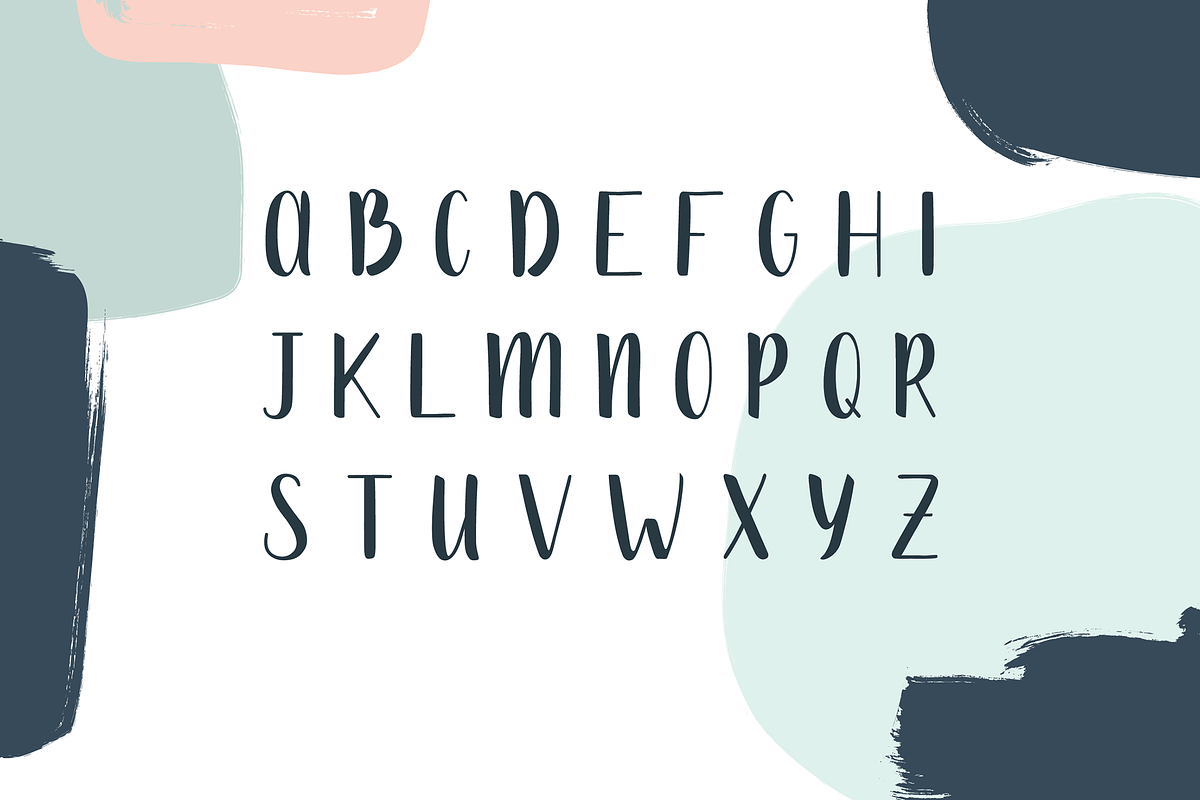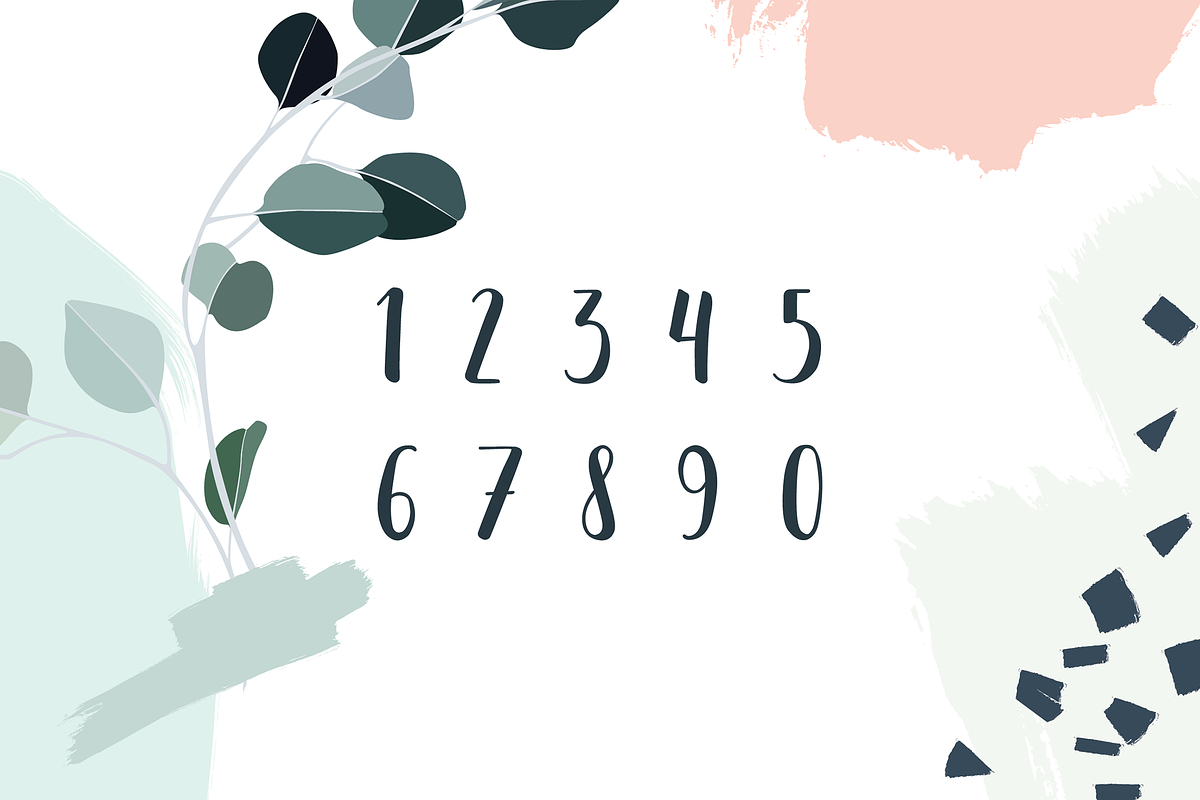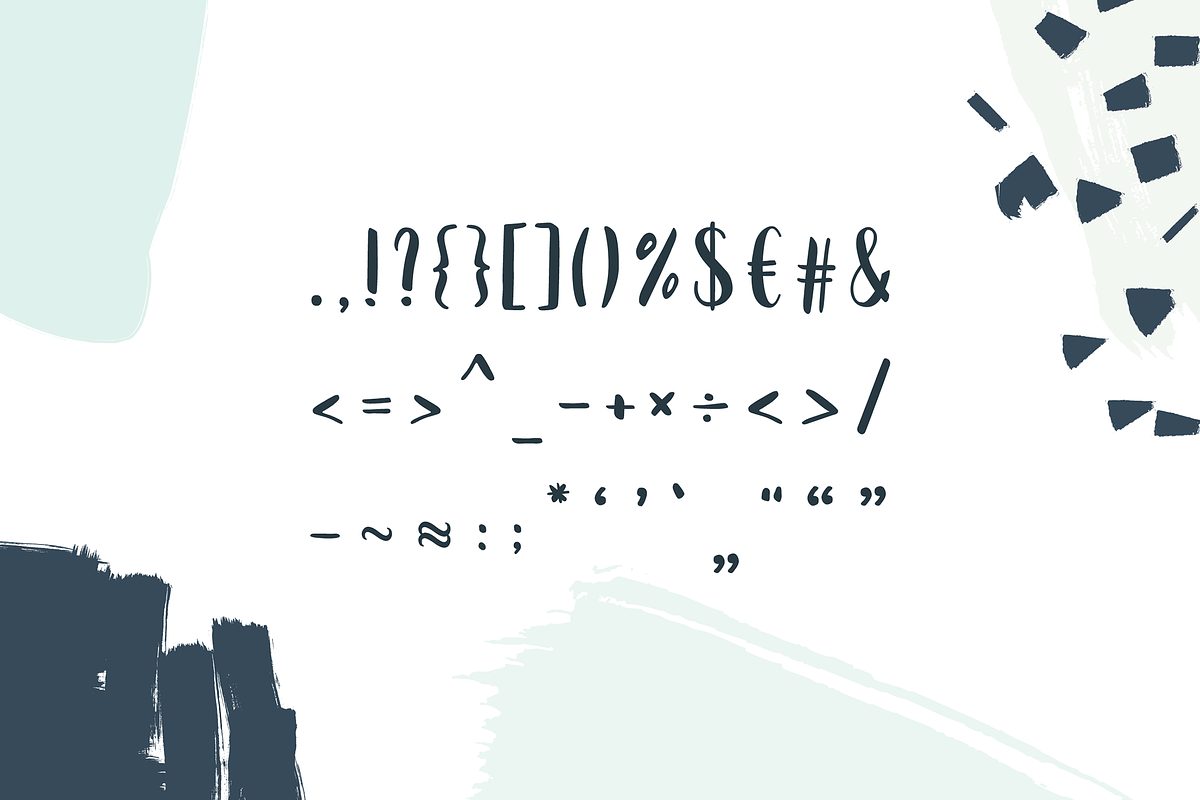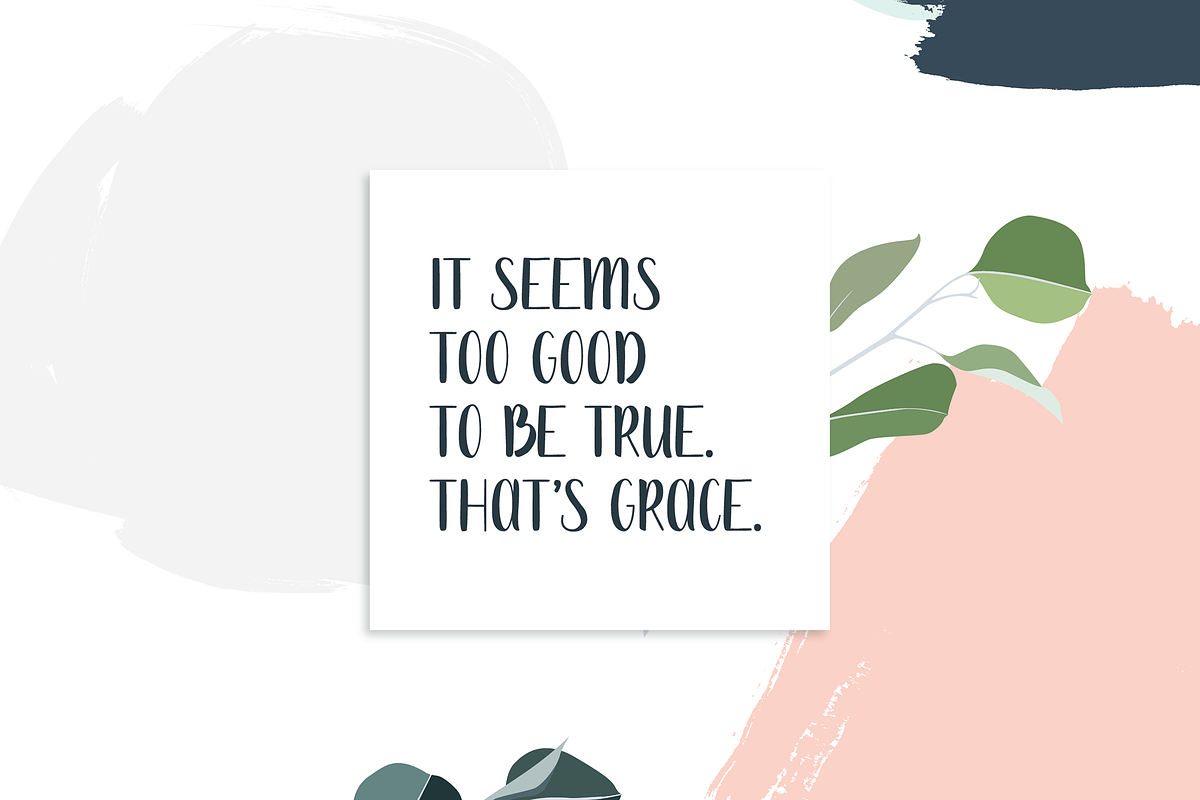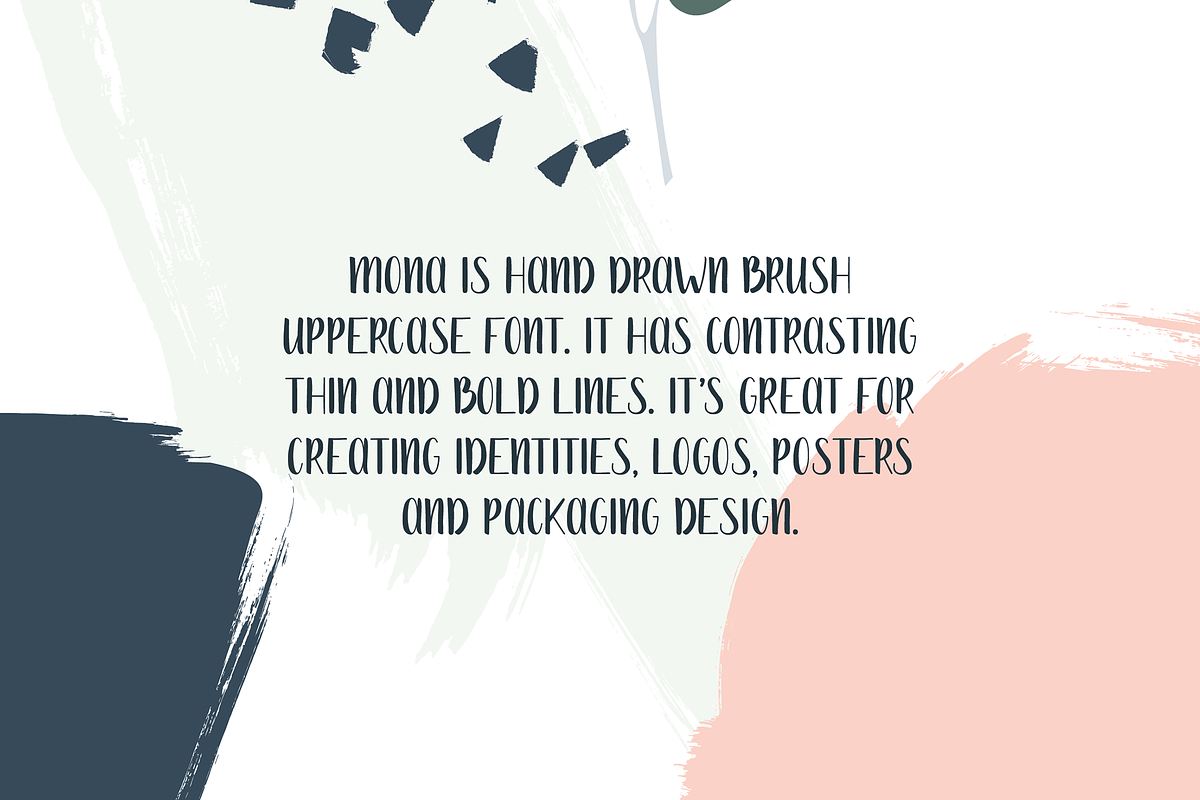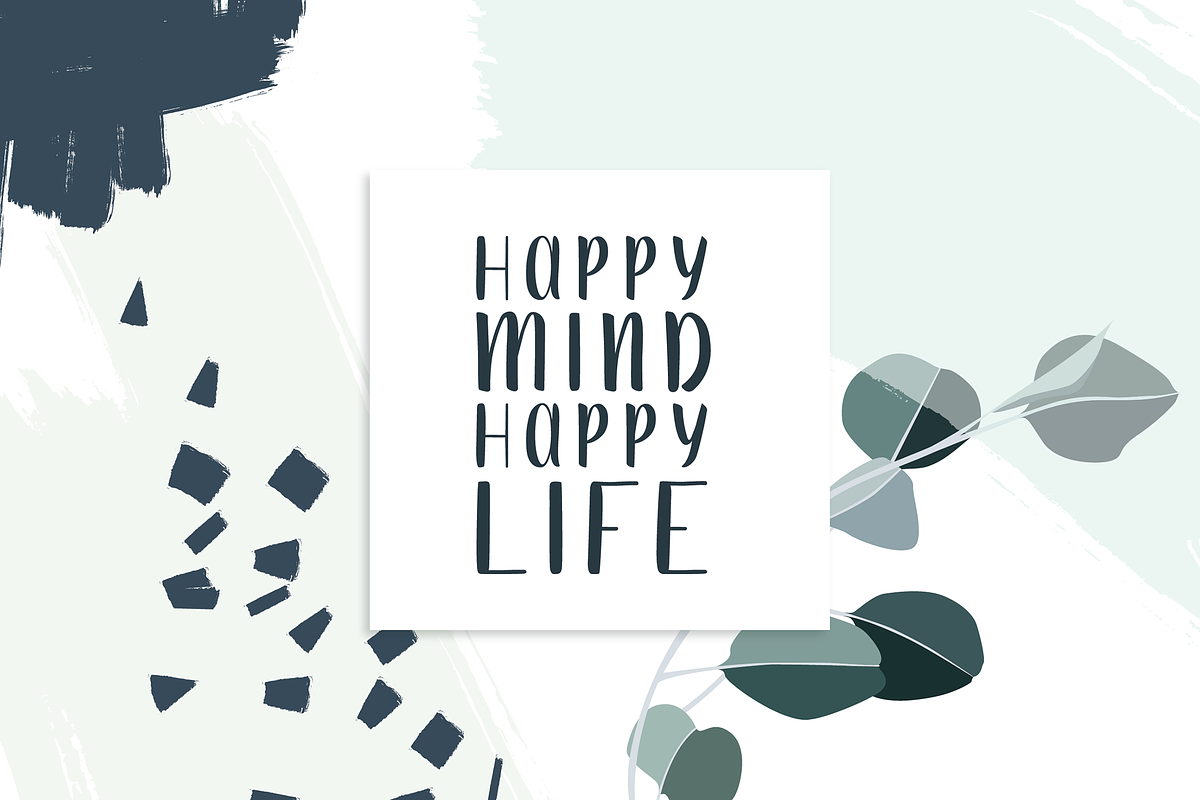
Mona Handwriting Font
Mona Handdrawn Font is a hand drawn brush uppercase font. It has contrasting thin and bold lines. It's great for creating identities, logos, posters and packaging design.
- Uppercase letters, numbers, symbols included.
Why Mona Handwriting Font is worth a look
Mona Handwriting Font by Wild Ones fits naturally into Branding, posters, packaging, typography.